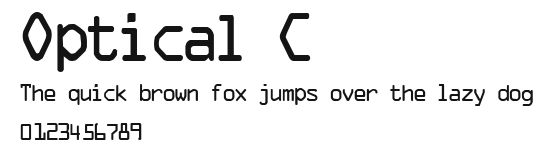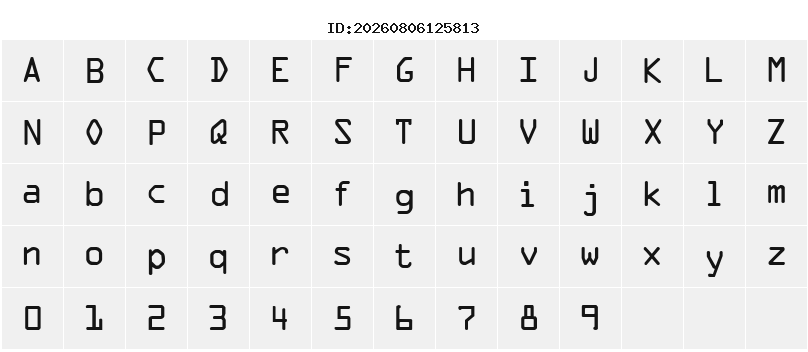
• Font Name: Optical C
• Font ID: Altsys Fontographer 4.1 Optical C Normal
• Full Font Name: Optical C Normal
• Version: Altsys Fontographer 4.1 1/9/95
• PostScript Name: OpticalCNormal
About Optical C.ttf
Optical C.ttf is a modern, elegant sans-serif font designed for ultimate readability and visual harmony. Perfect for branding, headlines, web design, and print materials.